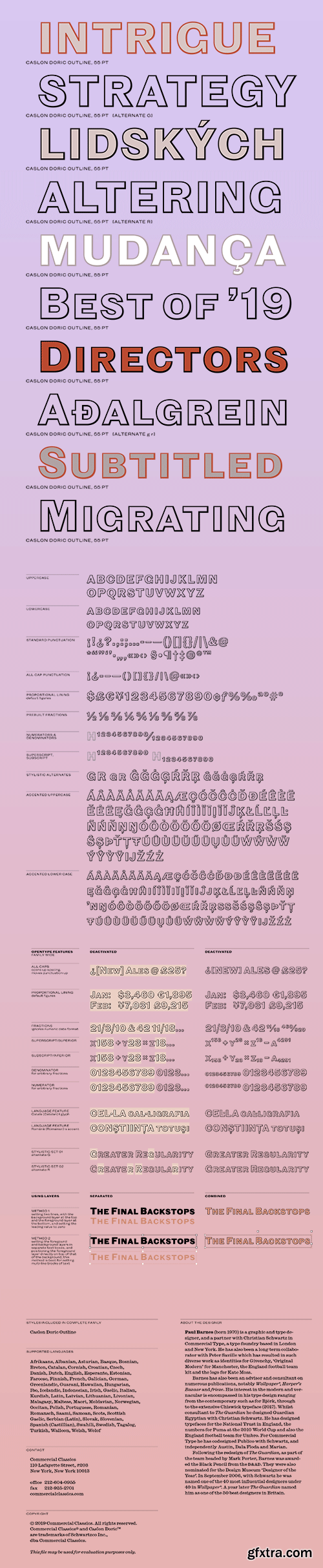
Caslon Doric Outline Font Family
With a delicate outline and slight shading Caslon Doric Outline is subtle demonstration of a shaded typeface. Based on Caslon’s Doric an all capital normal width of sans, the outline was a simple variant of cutting a key line around the form with a slight swelling to give the impression of shading. Like Blake & Stephenson Shaded Sans, it is form designed to allow the printer to imitate the skilled engraver. First appearing in the 1840s, the addition of layering allowing two colour effects offer designers today an elegantly distinguished all capital form.